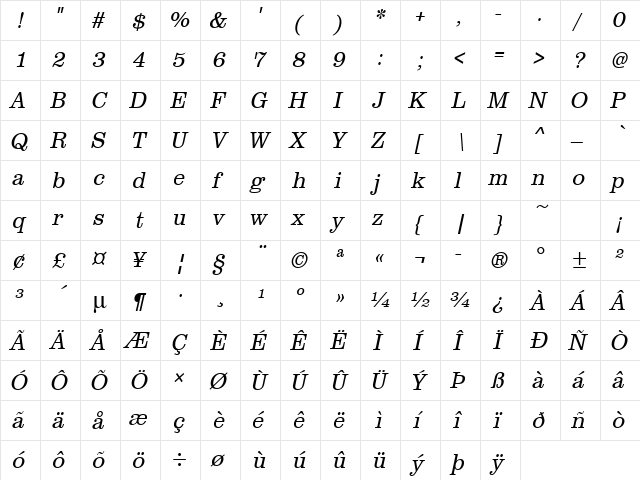
URWClarendonTLigExtNar Oblique Font Preview
URWClarendonTLigExtNar Oblique
Design Context for URWClarendonTLigExtNar Typeface
URWClarendonTLigExtNar features prominent, blocky serifs that give it a confident, grounded presence — equally at home in editorial settings and bold branding work. The slanted form adds forward momentum and visual energy.
Works well in editorial design, news publishing, impactful branding, and poster typography.
Pro Tip: Try URWClarendonTLigExtNar set tight in headlines for a classic editorial feel. Its slab serifs create strong horizontal rhythm that anchors a page layout.